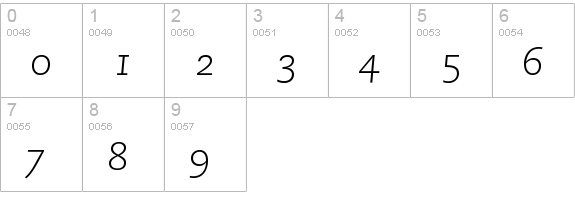
PMN Caecilia 46 Light Italic Small Caps & Oldstyle Figures Font Details
PMN Caecilia 46 Light Italic Small Caps & Oldstyle Figures is a beautifully designed font that exudes elegance and sophistication. With its slender and graceful letterforms, this font is perfect for adding a touch of refinement to any project. The light italic style adds a subtle and delicate feel to the text, making it ideal for conveying a sense of elegance and beauty. The small caps and oldstyle figures further enhance the versatility of this font, allowing for a variety of typographic options. PMN Caecilia 46 Light Italic Small Caps & Oldstyle Figures is not only visually appealing, but also highly legible, ensuring that your message is clearly communicated to your audience. Whether you are designing a logo, creating a business card, or working on a website, this font is sure to make a lasting impression. And the best part? PMN Caecilia 46 Light Italic Small Caps & Oldstyle Figures is freely available to download at FontsMarket.com. This means that you can easily access and use this stunning font without any cost. So why wait? Enhance your design projects with the beauty and versatility of PMN Caecilia 46 Light Italic Small Caps & Oldstyle Figures today.